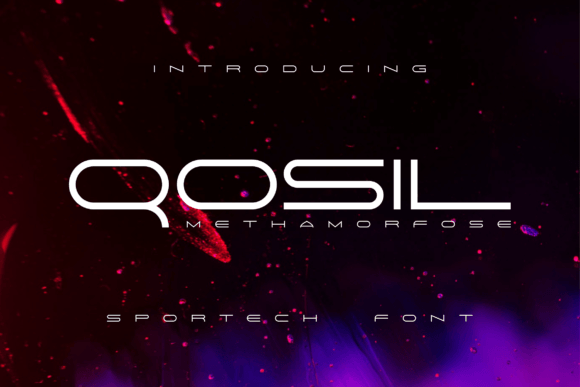
**Introducing Qosil Methamorfose: The Gateway to the Future of Typography**
Immerse yourself in a typographic revolution with Qosil Methamorfose, the display font that redefines modern aesthetics. This cutting-edge creation from Monoletter is a symphony of sleek lines and geometric precision, a visual masterpiece that transcends the ordinary.
Qosil Methamorfose is not merely a font; it's a statement of innovation, an embodiment of the future. Its razor-sharp edges and minimalist design evoke a sense of technological prowess, making it the perfect choice for branding, tech-savvy projects, and any design that aspires to the cutting edge.
Step into a world where typography takes on a new dimension. Qosil Methamorfose empowers you to forge a visual identity that commands attention and leaves an unforgettable impression. Its versatility extends beyond the realm of technology, embracing any design endeavor that seeks to break free from the mundane.
With Qosil Methamorfose, you'll unlock a treasure trove of creative possibilities. Craft logos that shimmer with futuristic elegance, design website interfaces that exude a sense of innovation, and create marketing materials that captivate audiences with their bold and distinctive appeal.
Experience the transformative power of Qosil Methamorfose, the font that will propel your designs into the future. Embrace the metamorphosis, and let your creativity soar to unprecedented heights.
**Features that Ignite Inspiration:**
* Ultra-modern and futuristic design
* Geometric precision and minimalist style
* Ideal for branding, tech-related projects, and bold designs
* Endless creative possibilities and captivating visual impact
**Why Qosil Methamorfose?**
Because you deserve a font that:
* Reflects your forward-thinking vision
* Commands attention and makes a lasting impression
* Empowers you to create designs that stand out from the crowd
* Inspires innovation and pushes the boundaries of typography